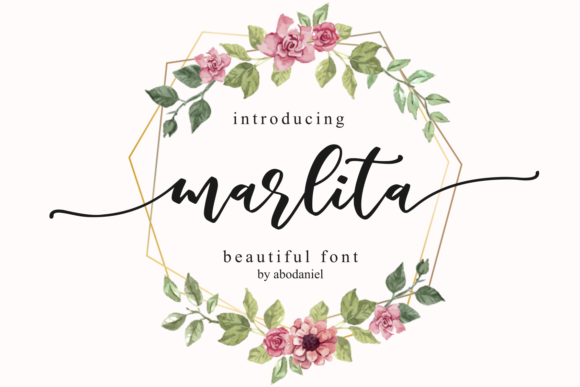
Introducing Marlita Font, a script typeface that will mesmerize you with its elegance and charm. Unleash your creativity and let Marlita transform your designs into breathtaking works of art.
With its captivating curves and refined style, Marlita is not just a font; it's a journey into a realm of beauty and inspiration. Experience the magic of effortless artistry as you weave your words into stunning compositions. Marlita's enchanting presence will leave a lasting impression on your audience, making your designs truly unforgettable.
Step into a world of limitless possibilities with Marlita, where creativity knows no bounds. Whether you're crafting logos, branding materials, website designs, or even heartfelt invitations, Marlita will elevate your work to new heights of sophistication and elegance. Embrace the beauty of this font and watch your designs blossom into masterpieces.